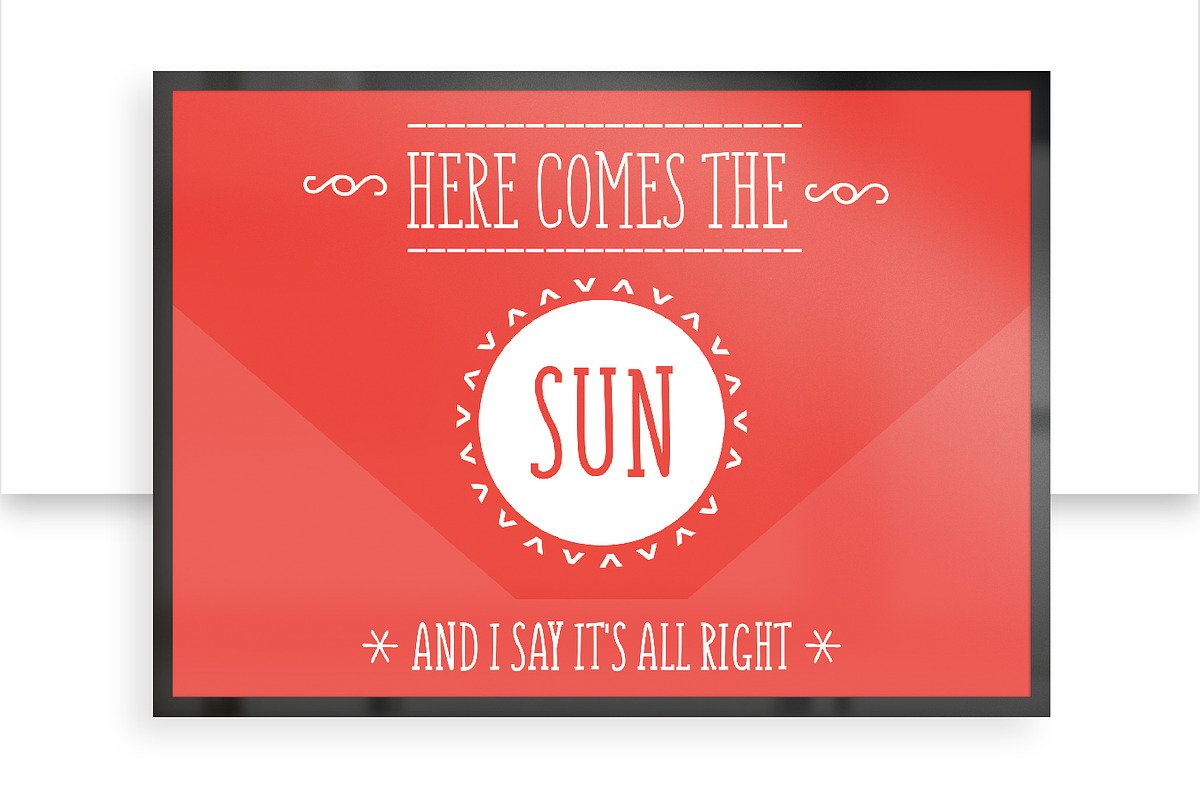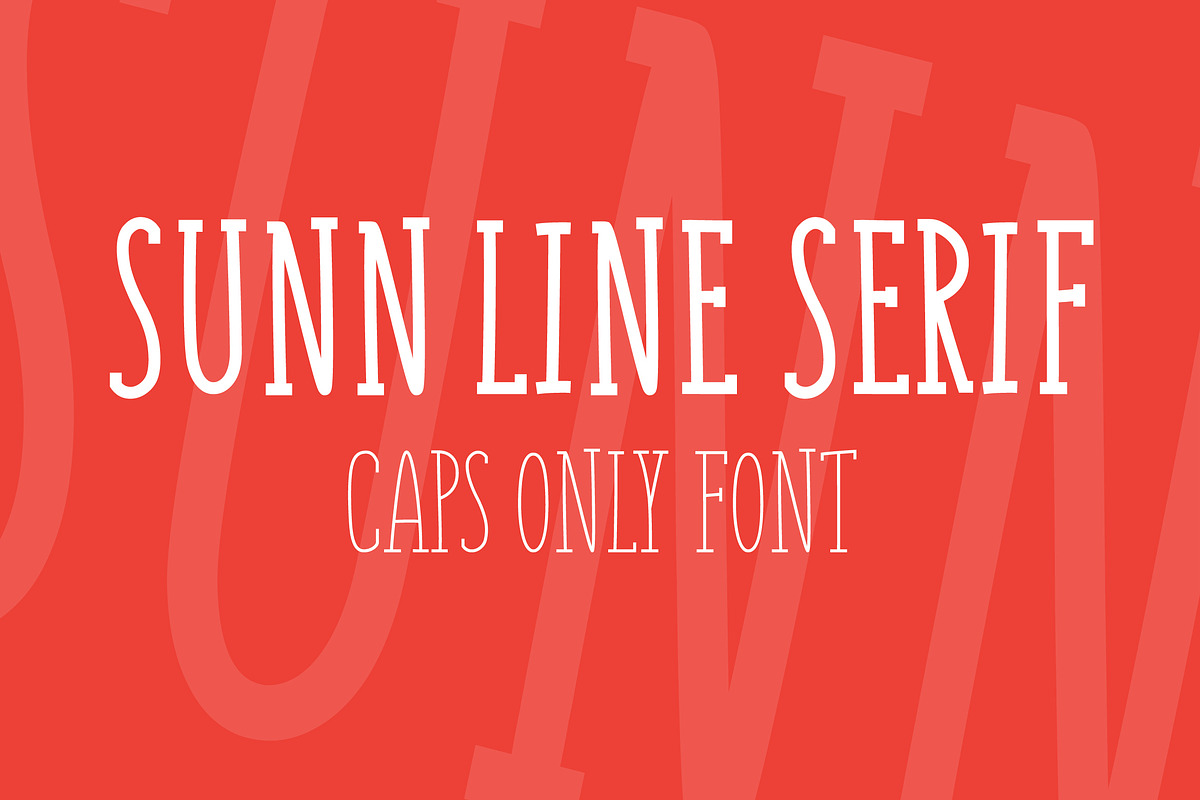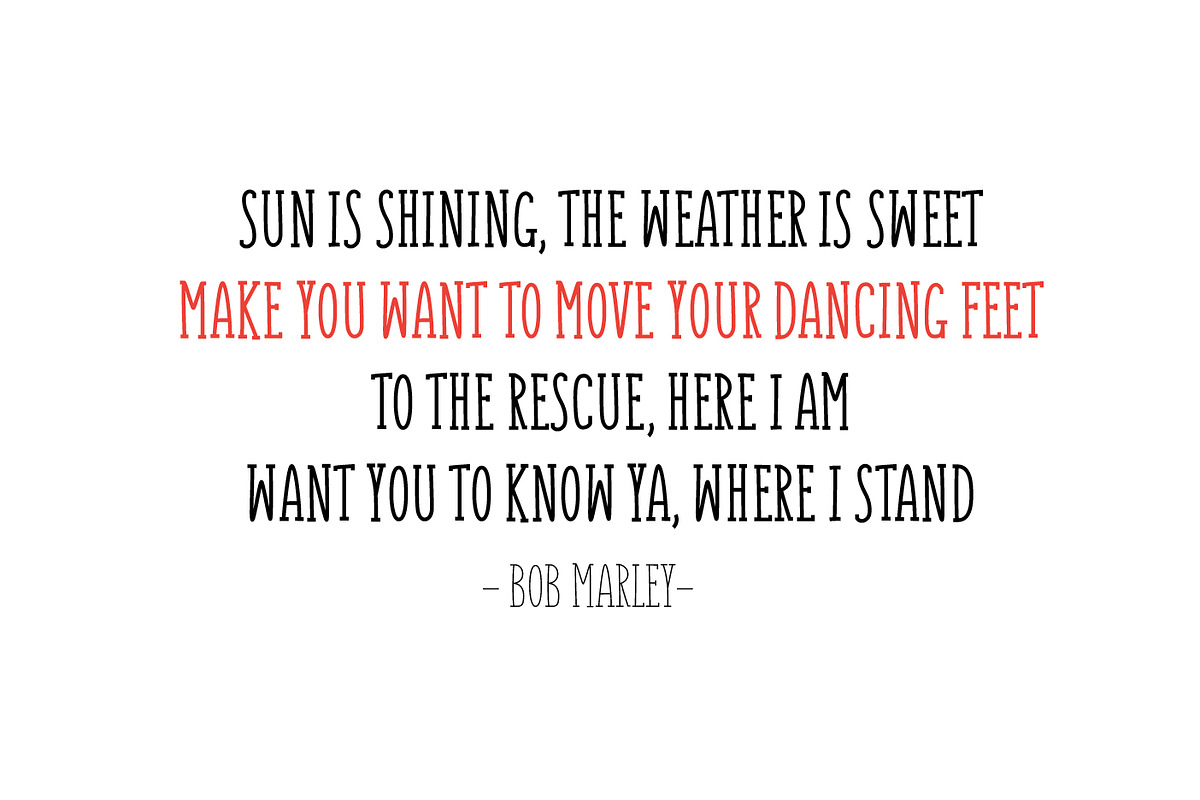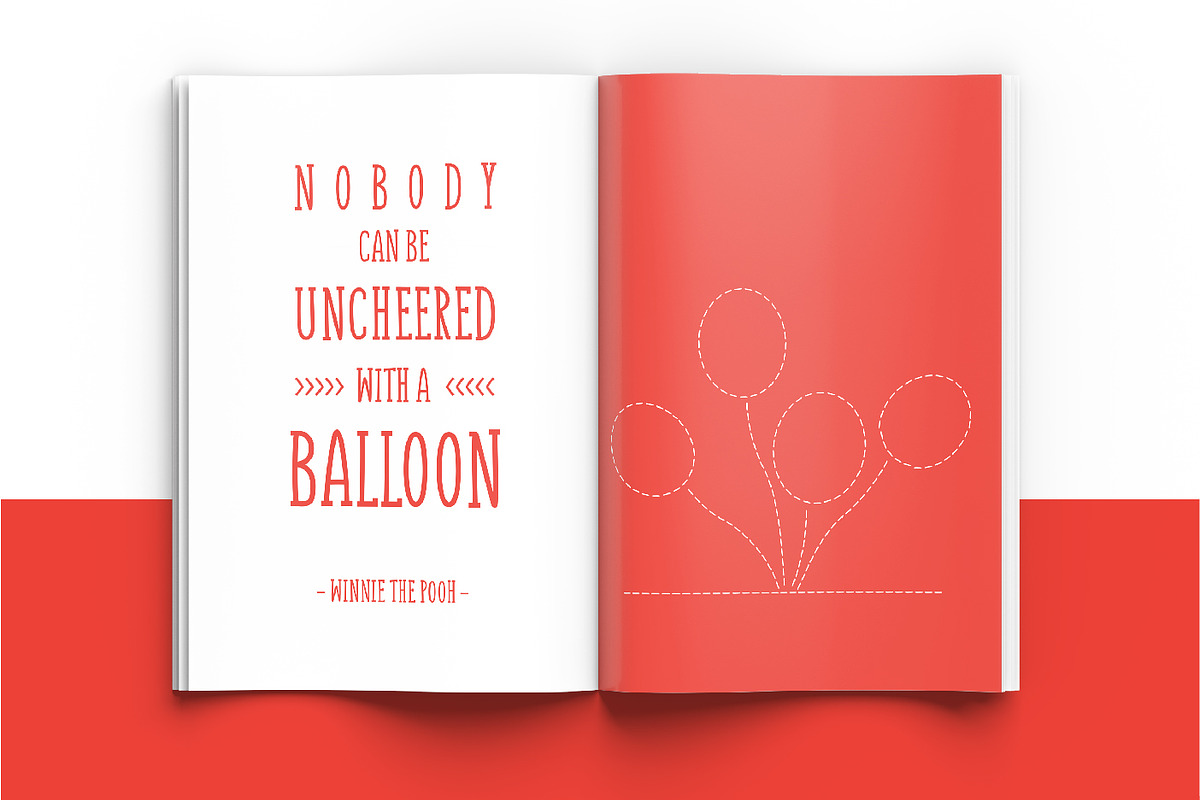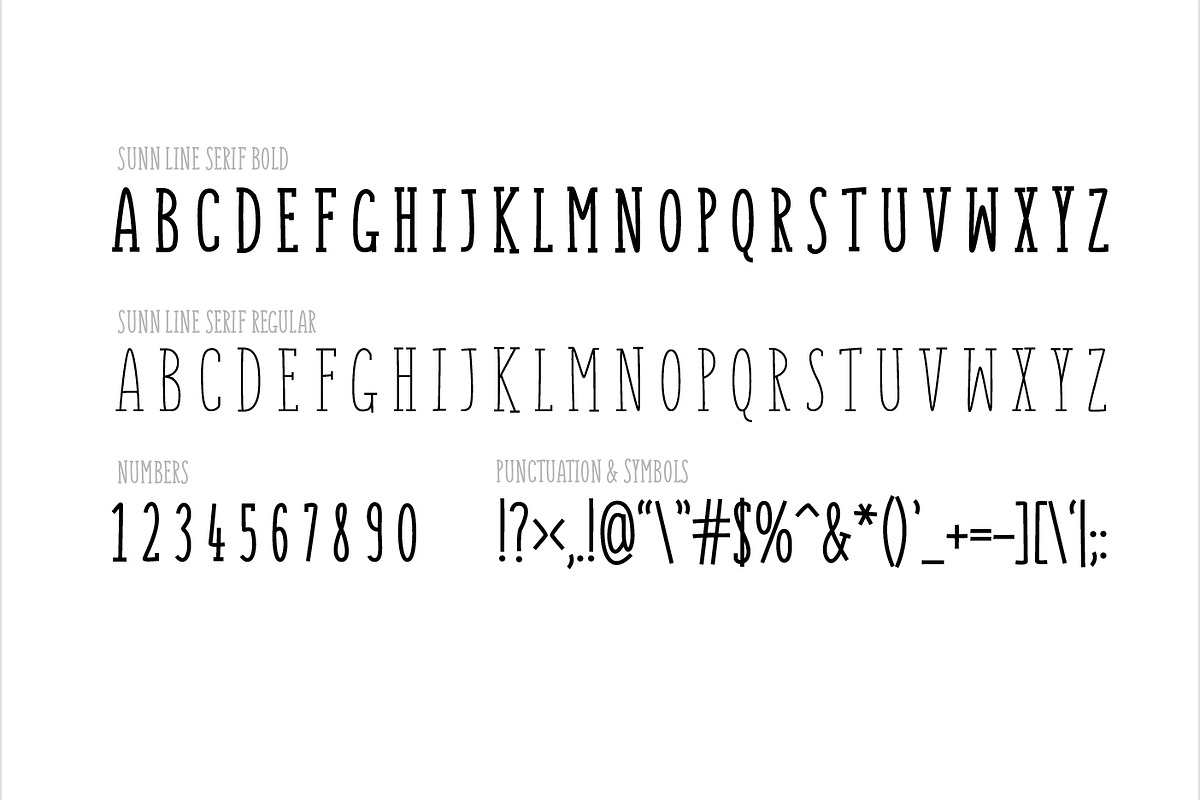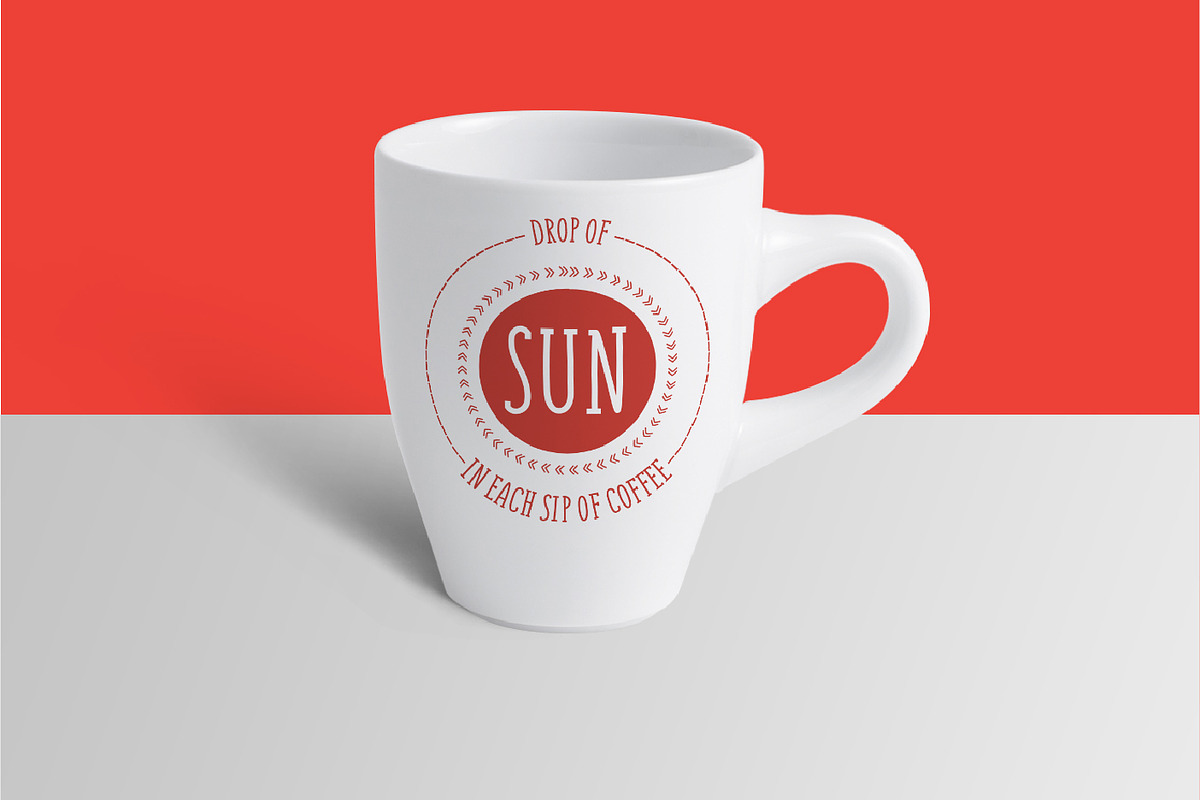
SUNN Line Serif Caps Only Font
SUNN Line Serif Caps Only Font by Wild Ones is a font selected for branding, posters, packaging, typography.
- SUNN Line Serif Caps Only Font comes in two weights - Bold and Regular, it has only latin uppercase letters, numbers and some symbols.
SUNN Line Serif Caps Only Font by Wild Ones fits naturally into Branding, posters, packaging, typography.